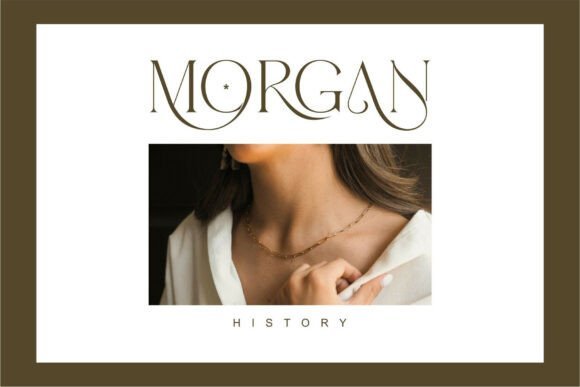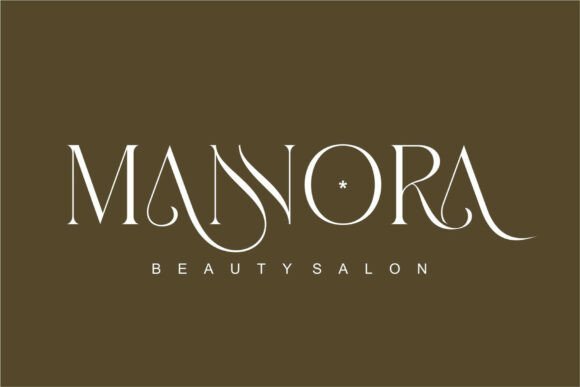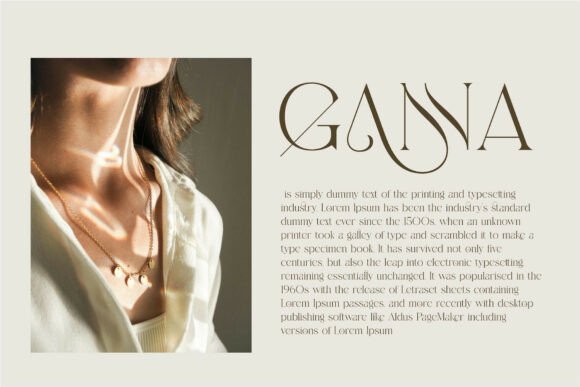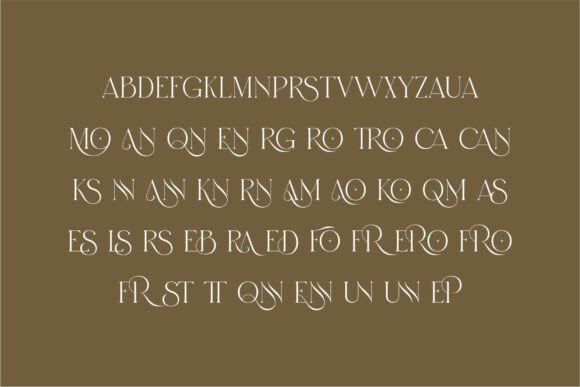
Munnes Font
MUNNES is a beautifully crafted serif font that effortlessly combines timeless elegance with a vintage soul and a modern edge. Designed with attention to detail, each character in this typeface carries a refined aesthetic, making it an ideal choice for designers who want to convey sophistication, class, and a touch of nostalgia.